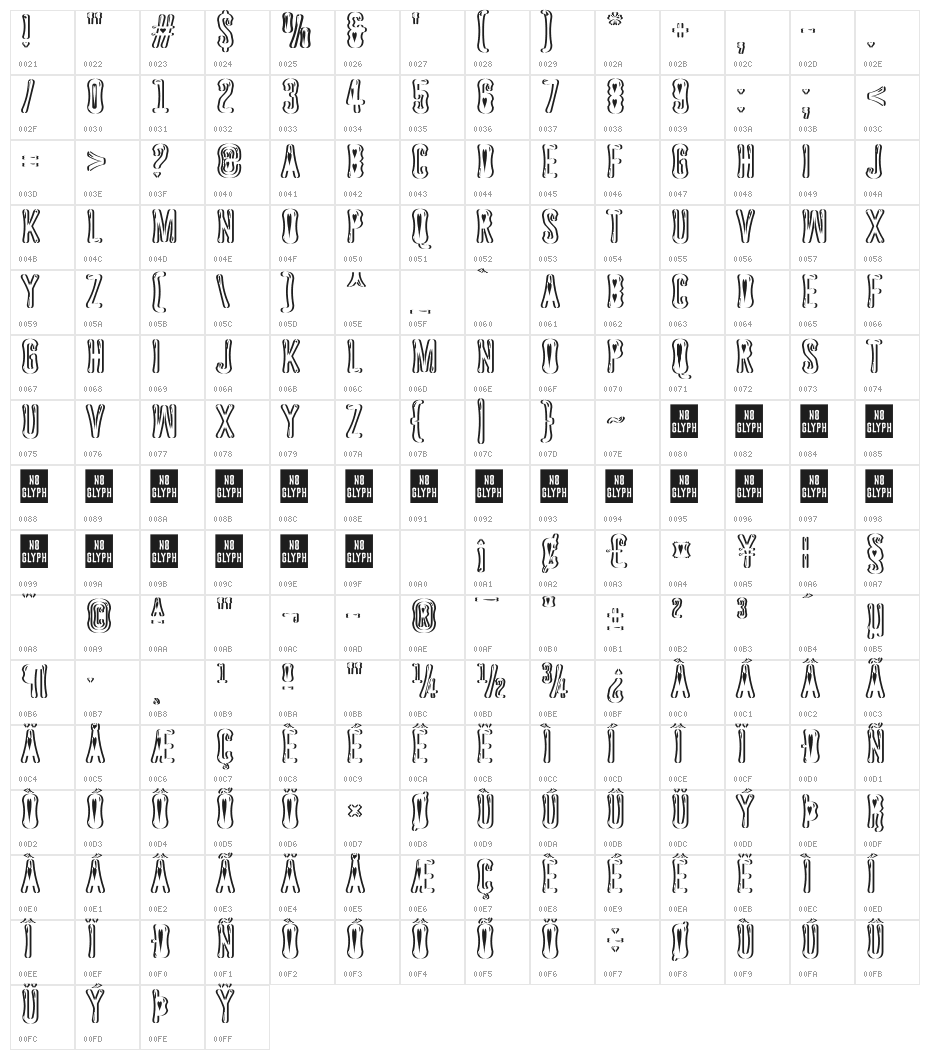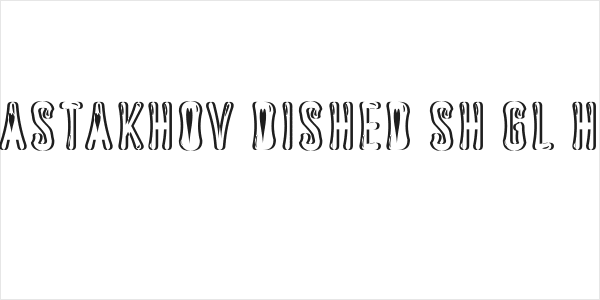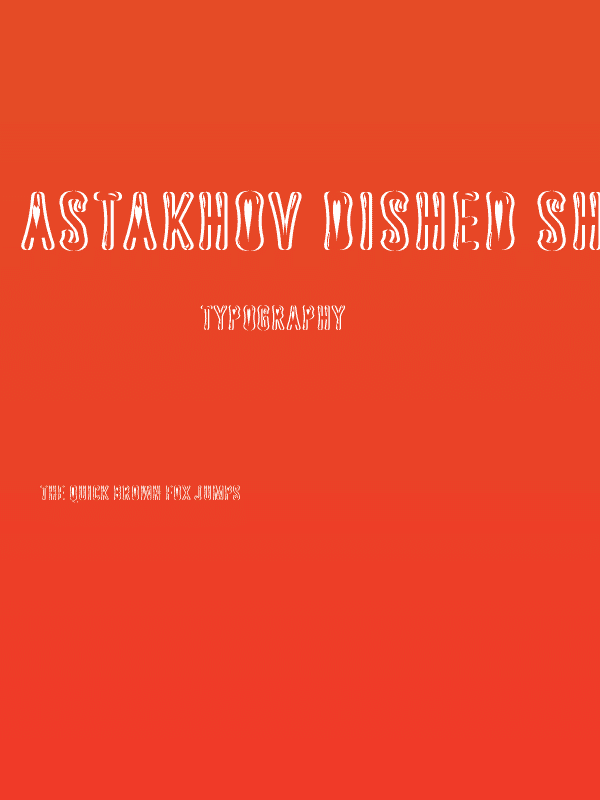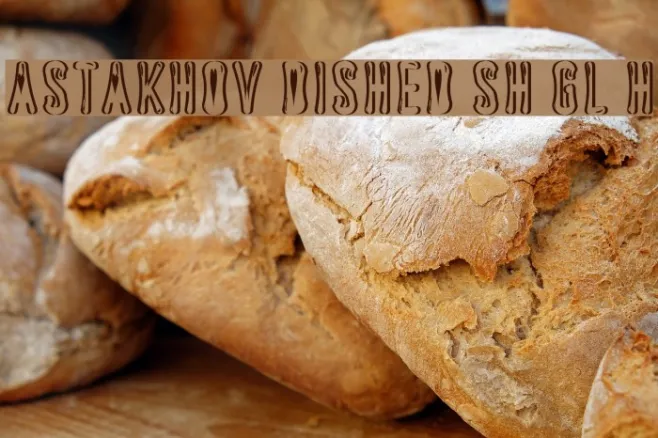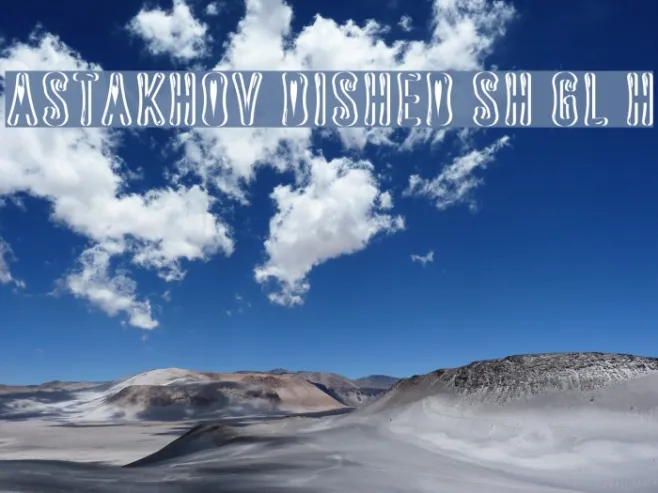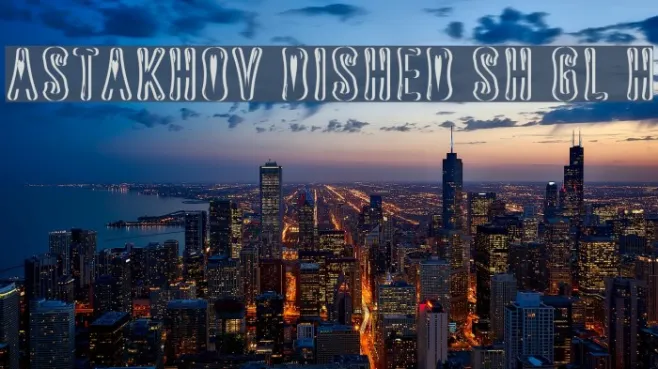
Astakhov Dished Sh Gl H Font
Astakhov Dished Sh Gl H Description
This font features a unique and playful design with a decorative style. Each character is crafted with a hollow interior and bold outlines, creating a striking visual effect. The letters have a whimsical, almost cartoon-like appearance, with varying line thicknesses that add depth and interest. The inclusion of heart shapes within some characters adds a touch of charm and personality. This font is highly stylized, making it ideal for creative projects that require a distinctive and eye-catching typeface.
| Proposed Projects | Ideal for greeting cards, playful branding, children's books, and event posters. |